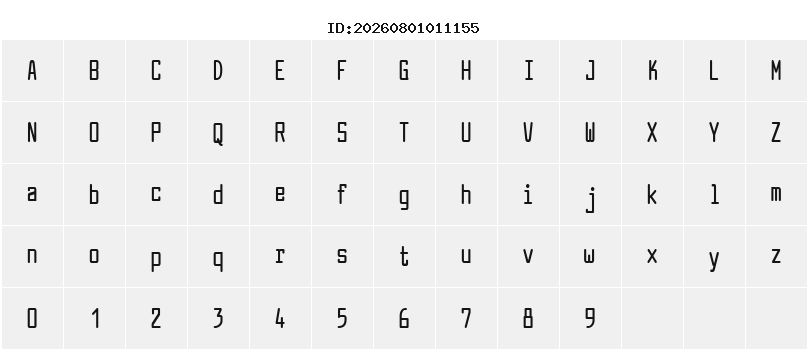
• Font Name: Larabiefont Compressed
• Designer: Ray Larabie
About Larabiefont Compressed.ttf
Larabiefont Compressed.ttf is a modern, elegant sans-serif font designed for ultimate readability and visual harmony. Perfect for branding, headlines, web design, and print materials.